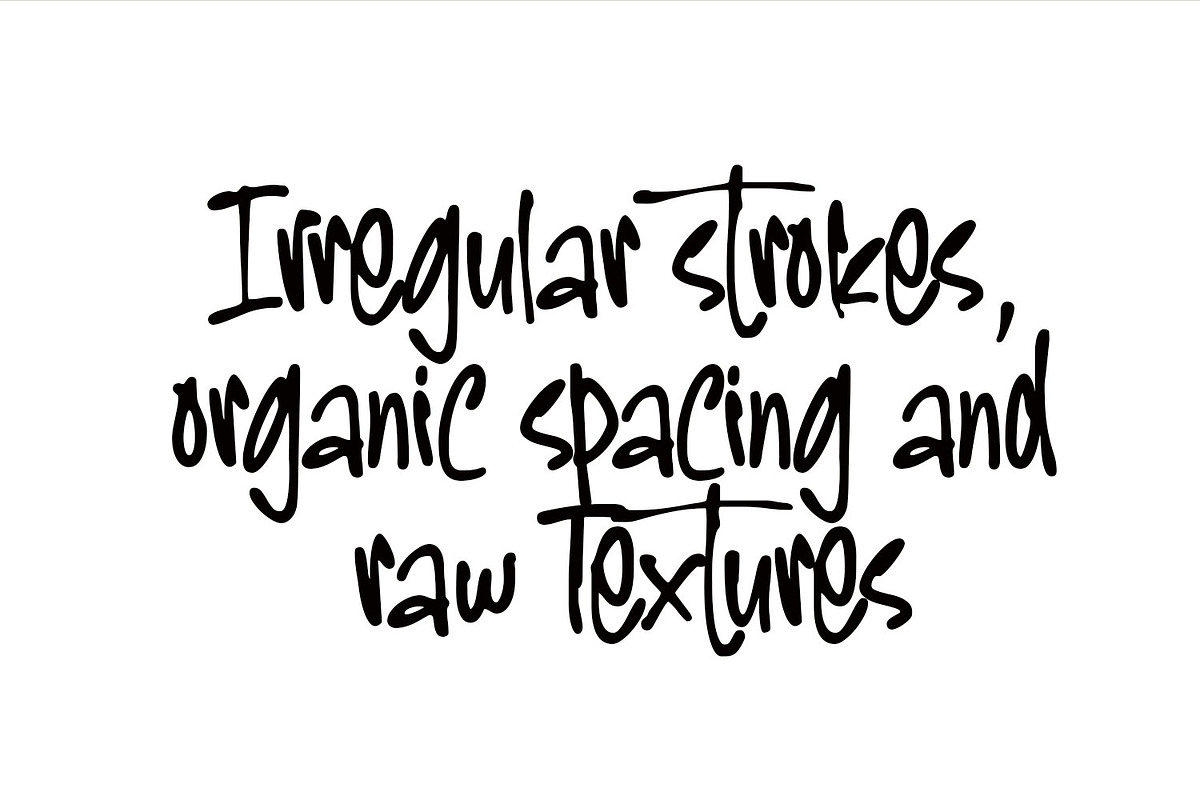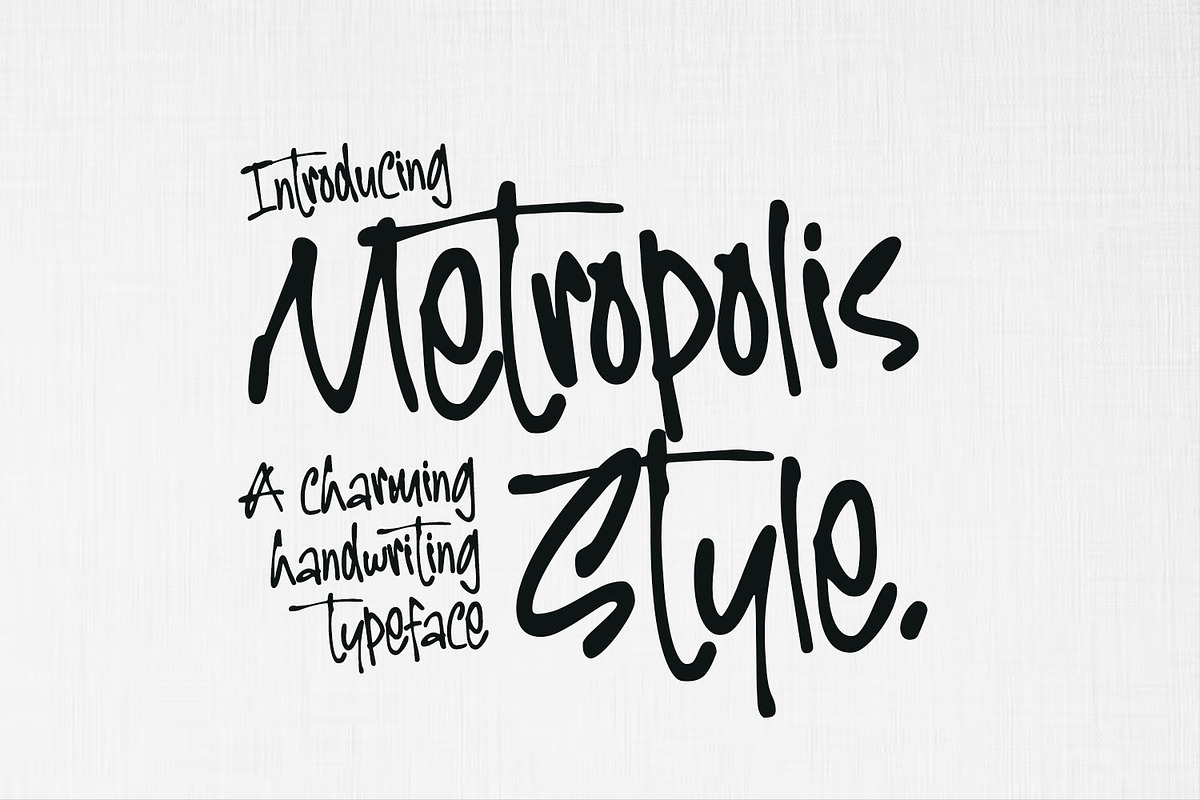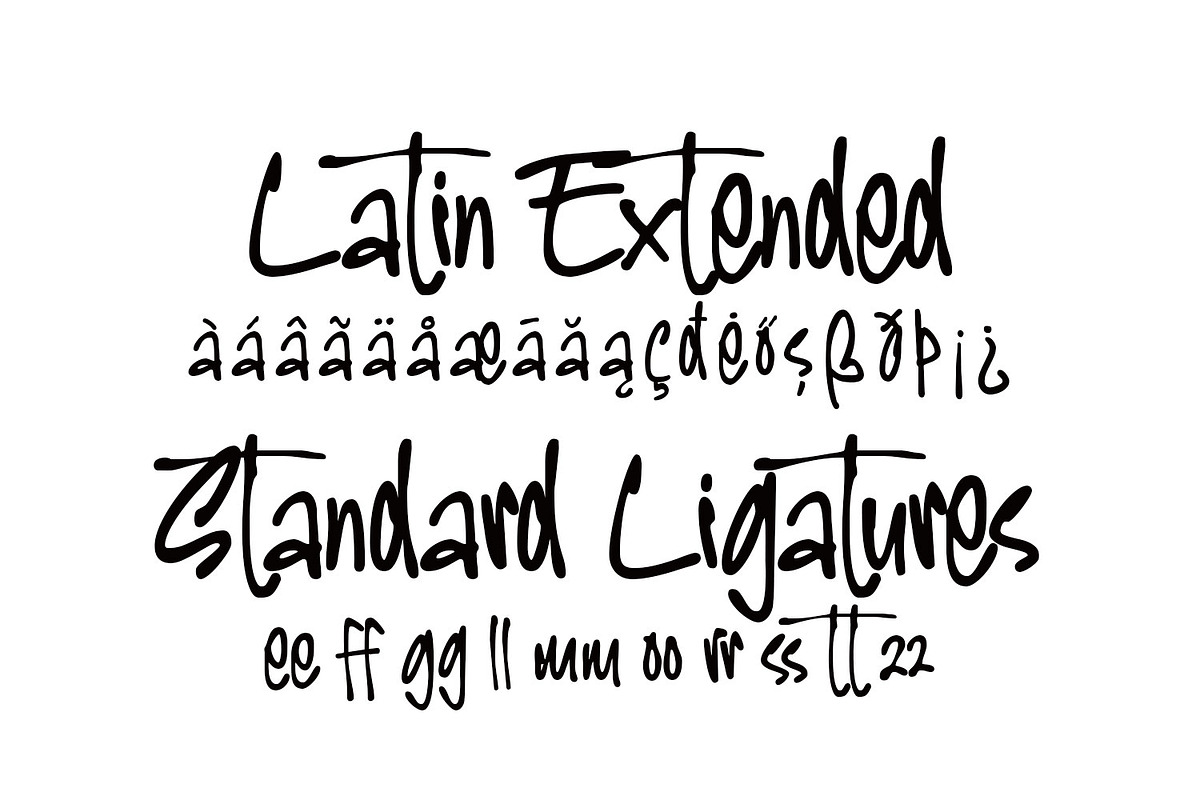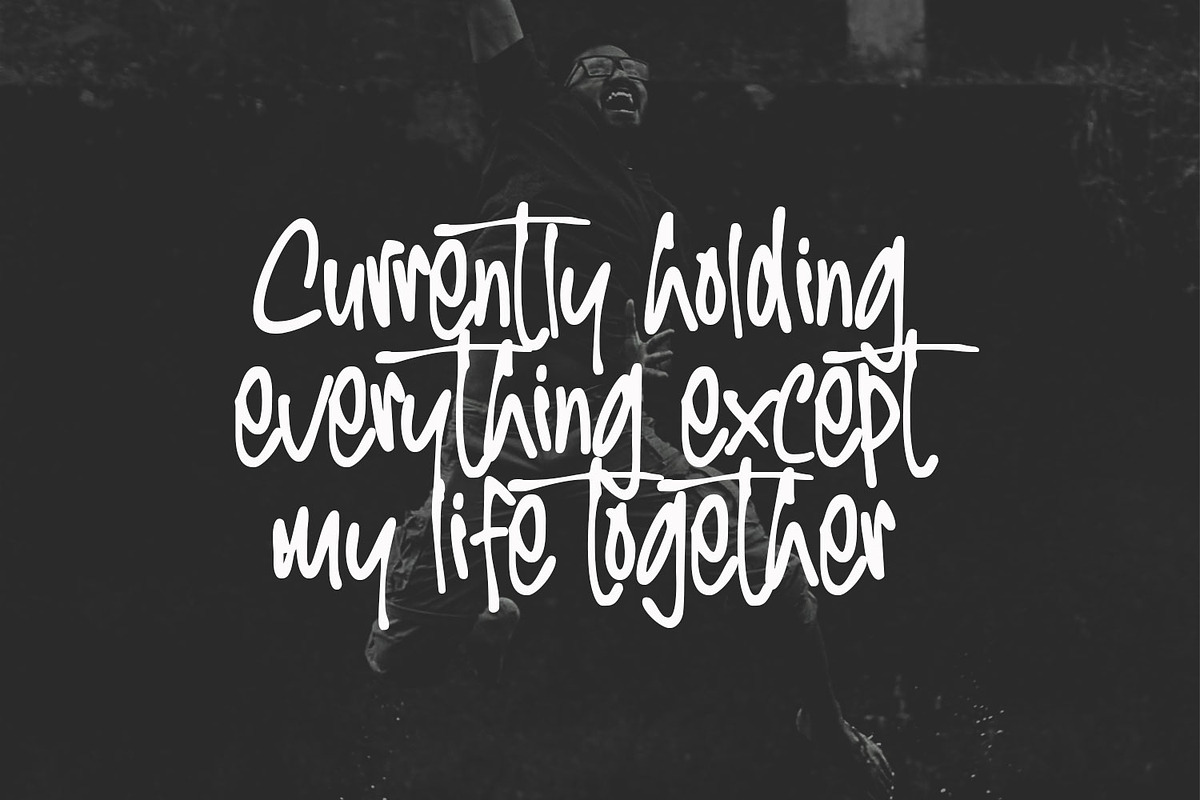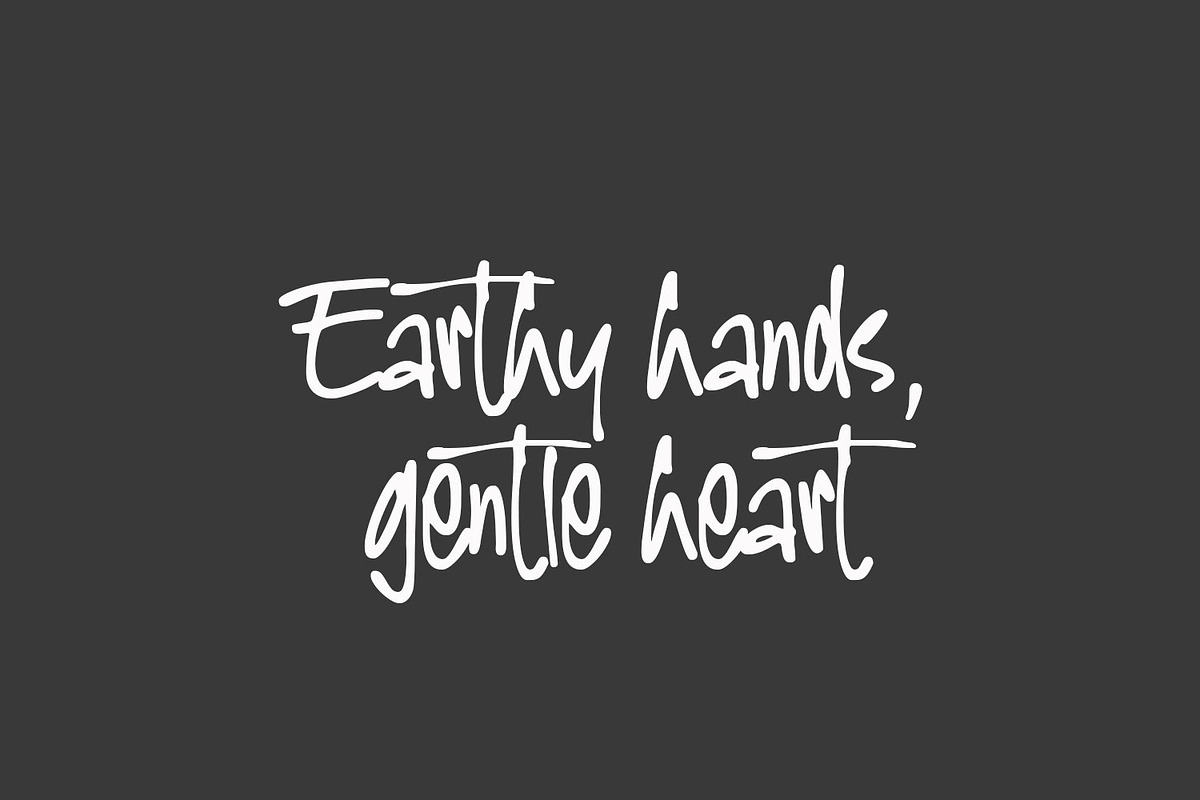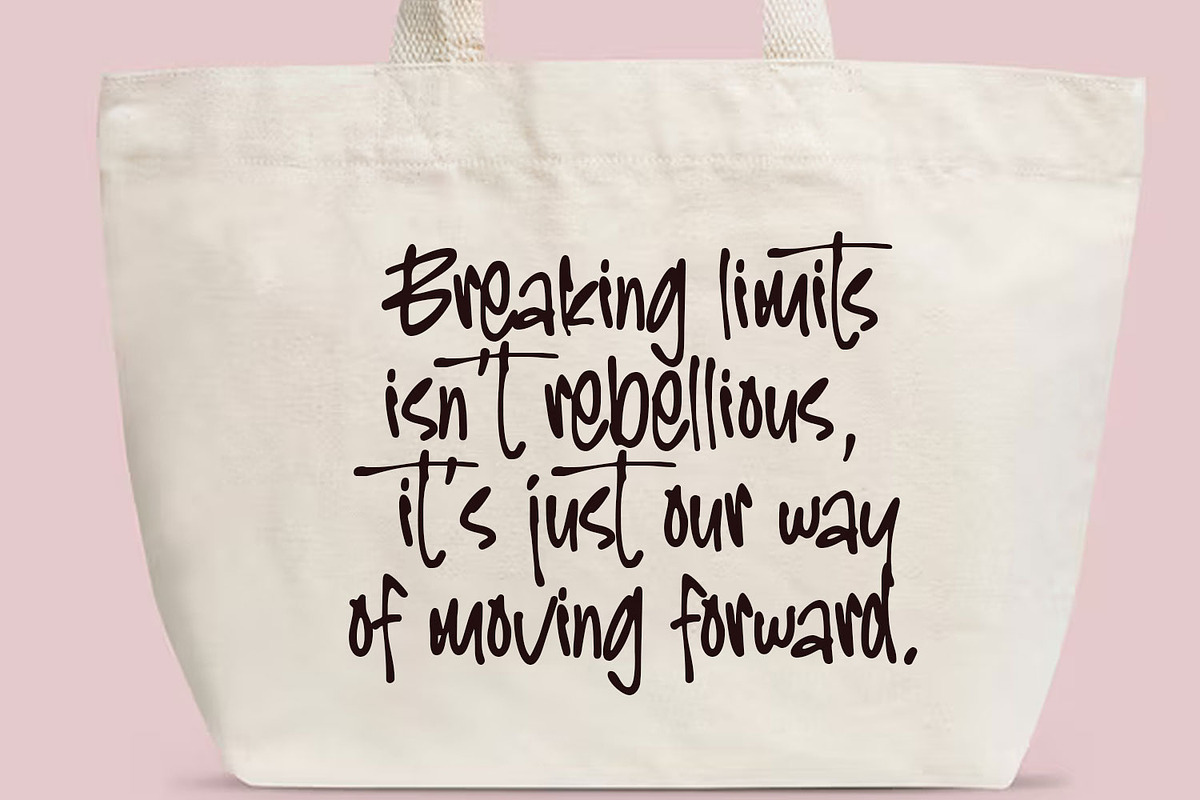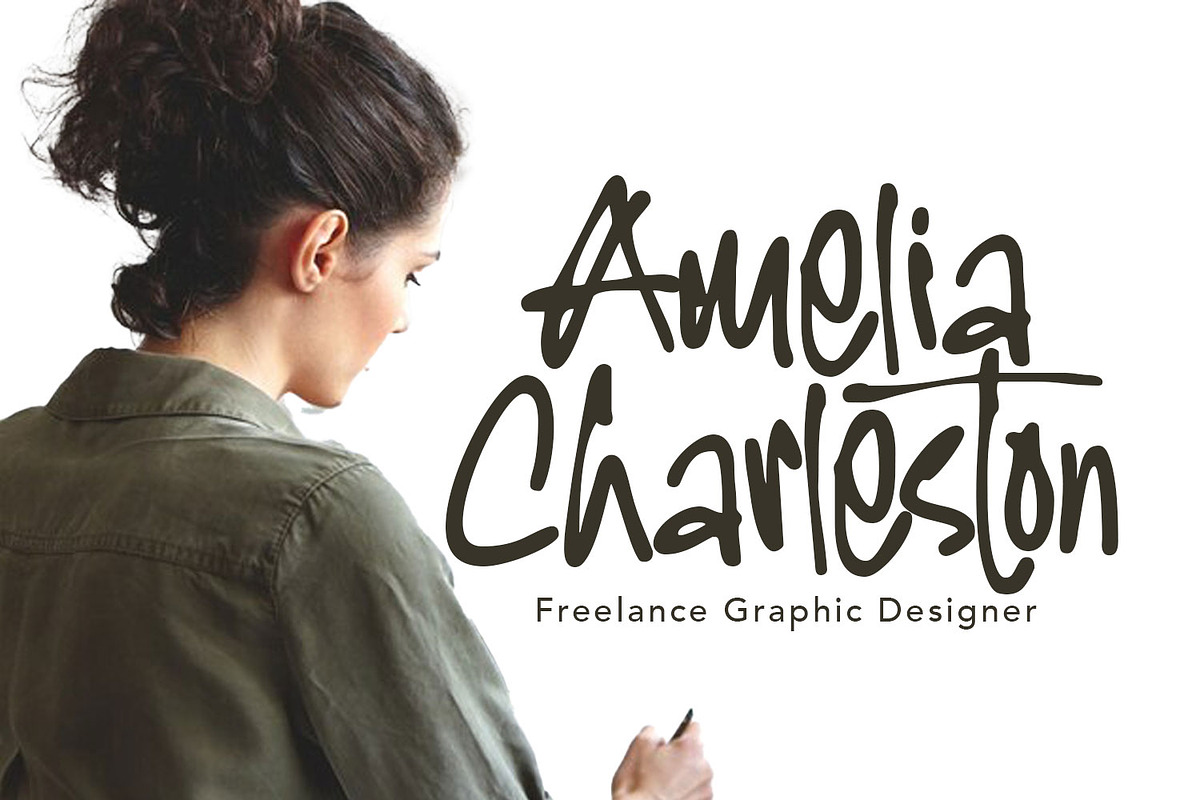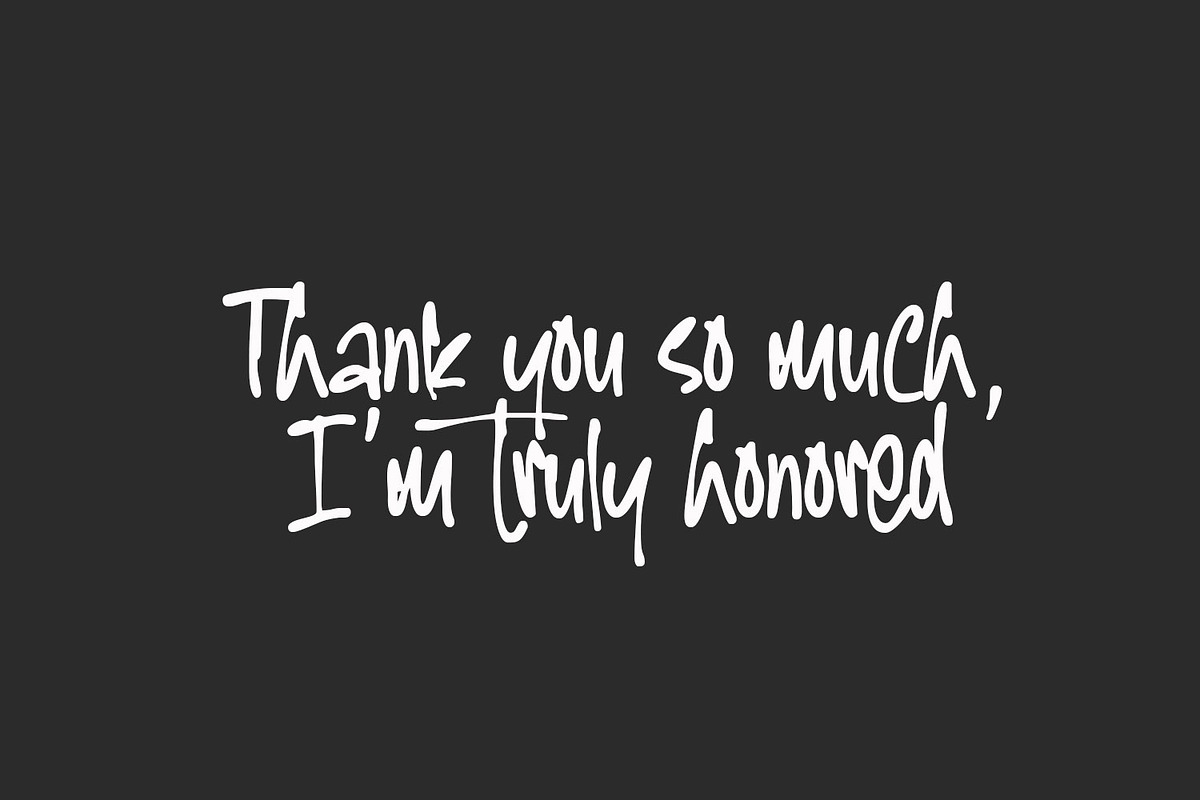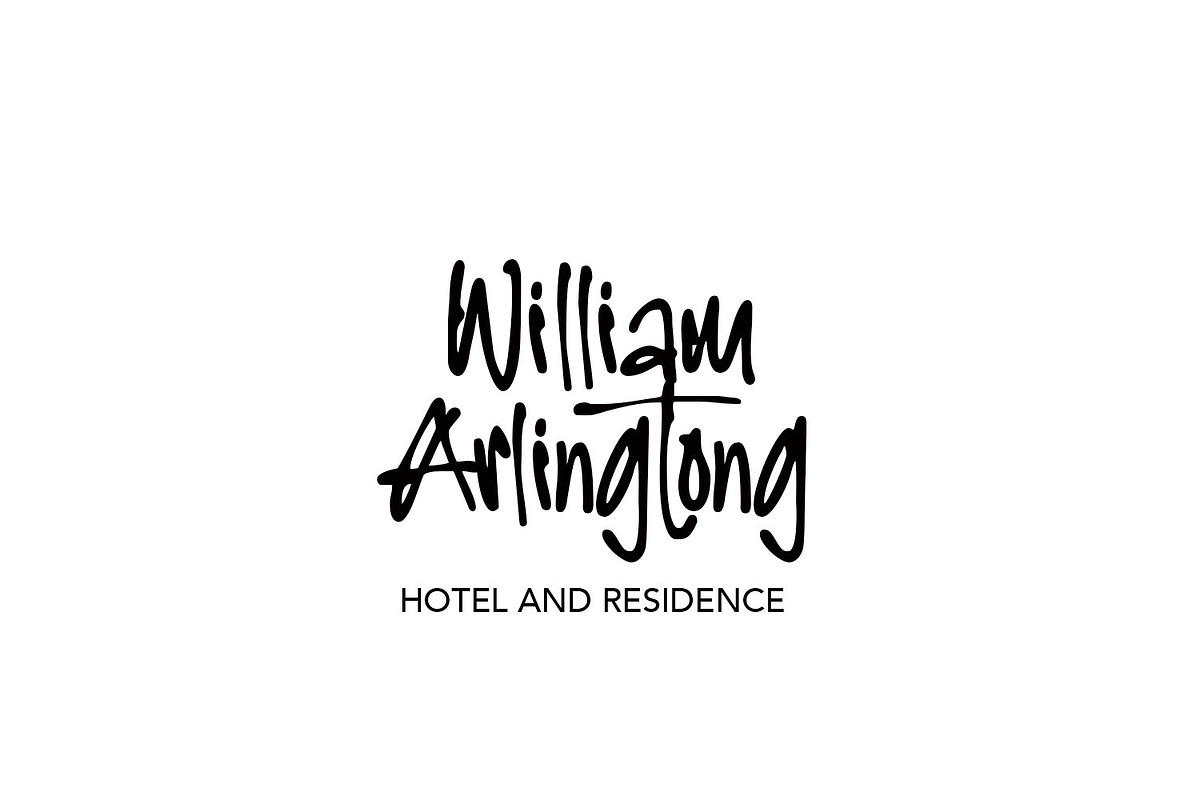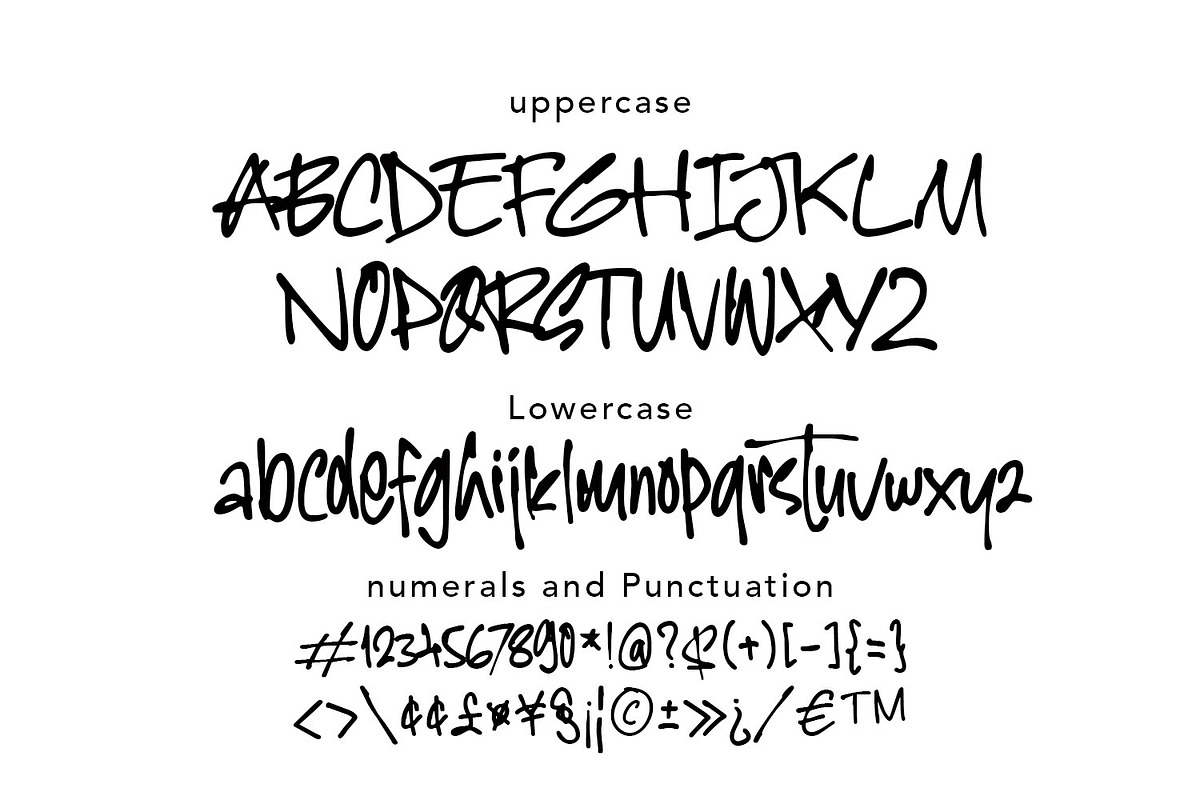
Metropolis Style - truly handwritten
There’s something magical about handwriting, the imperfections, the rhythm, the soul in every stroke. Metropolis Style captures that spirit perfectly. Born from the idea of creating a typeface that feels truly alive, Metropolis Style brings together organic flow, irregular strokes, and a natural, effortless energy. Every letter dances with character, giving your words a raw, human touch that no mechanical font could replicate.
Designed for those who seek authenticity in their work, Metropolis Style flows like real handwriting — soulful, spontaneous, and full of heart. It’s perfect for logo designs, branding, editorial pieces, social media graphics, and anything that needs to feel personal and genuine. Whether you're telling a story, crafting a brand, or designing a package, Metropolis Style will bring a natural rhythm and emotional warmth to your creations. Let your words move, naturally, beautifully with Metropolis Style.